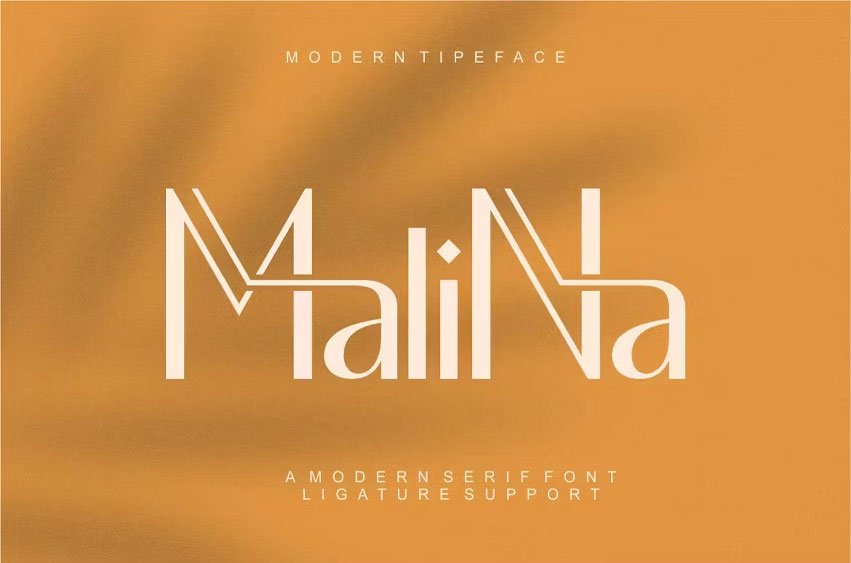
Malina Font Proudly present our new product Malina Font. Malina Fontt is a modern and authentic font. Perfect for both professional and branding needs of a product. This font is suitable for any branding project like quotes, logo, blog header, poster, banding, letter, invitation, stationery, etc… Designed as a versatile and flexible that can be used on a range of projects and mediums. outstanding in a wide range of contexts.